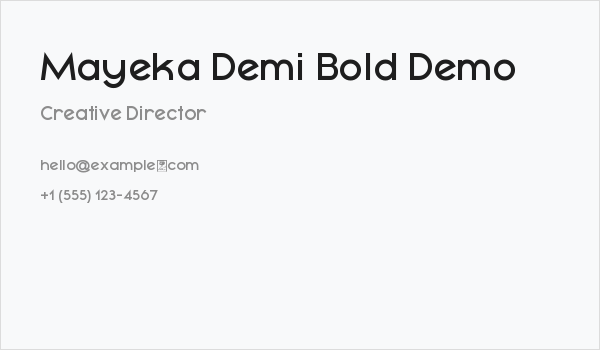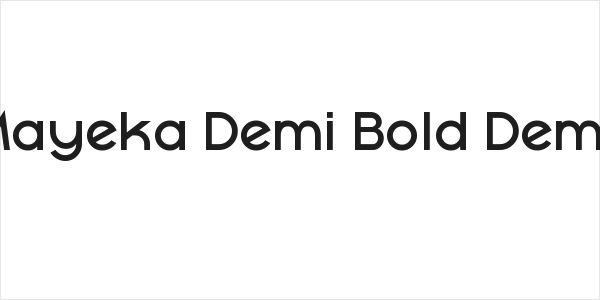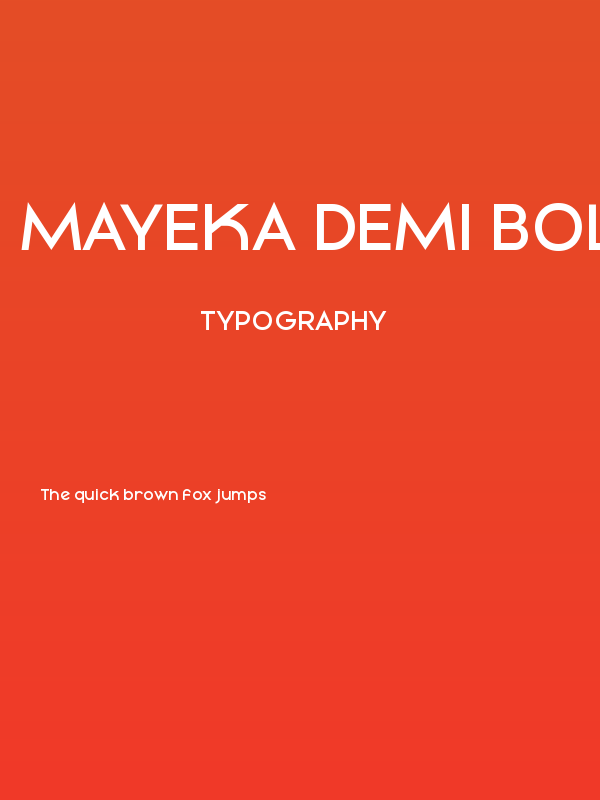
Mayeka Demi Bold Demo Font
Mayeka Demi Bold Demo Description
This font features a clean and modern sans-serif design with a geometric structure. The characters are bold and evenly weighted, providing a strong visual impact. The uppercase and lowercase letters maintain a consistent style, with rounded edges and a uniform stroke width. The numbers are clear and legible, making them suitable for various applications. Special characters are included, offering versatility for different uses. The overall aesthetic is sleek and contemporary, ideal for projects requiring a bold and professional look.
| Proposed Projects | Ideal for branding, headlines, posters, and digital media where a strong, modern presence is desired. |